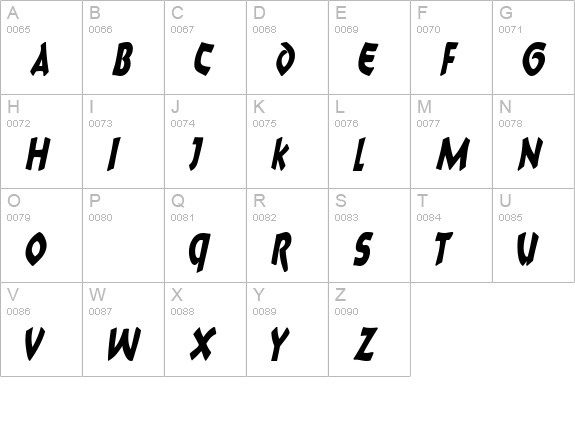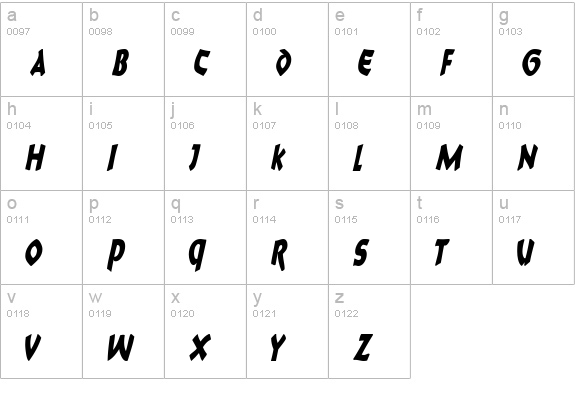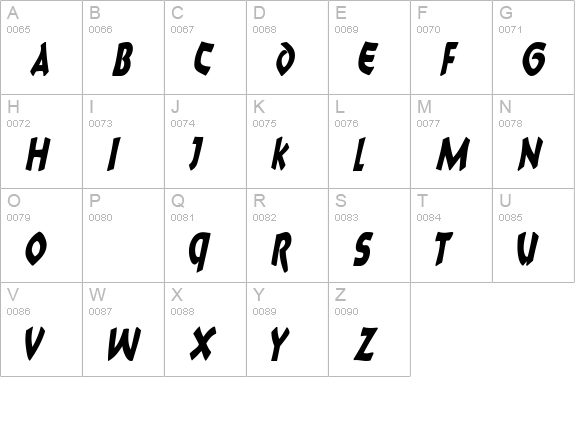
8BallScriptSCapsSSK BoldItalic Font Details
Below you can preview 8BallScriptSCapsSSK BoldItalic in uppercase [A-Z], lowercase [a-z] and numbers [0-9]. You can also read the author's notes and license information before downloading.
8BallScriptSCapsSSK BoldItalic is a stylish and eye-catching font that combines boldness with elegance. The unique design of this font makes it perfect for adding a touch of sophistication to any project. Its striking appearance is sure to grab attention and leave a lasting impression on viewers. This font is not only visually appealing but also versatile, making it suitable for a wide range of design projects. Whether you're creating a logo, poster, invitation, or any other type of design, 8BallScriptSCapsSSK BoldItalic will help you achieve a professional and polished look. The best part is that this font is available for free download at FontsMarket.com. So, if you're looking to enhance your designs with a unique and impactful font, be sure to check out 8BallScriptSCapsSSK BoldItalic. Download it today and take your designs to the next level!